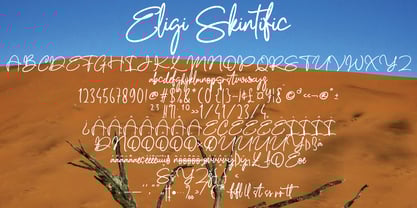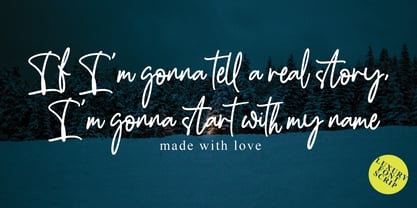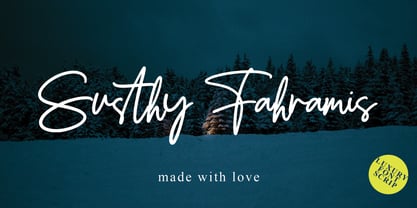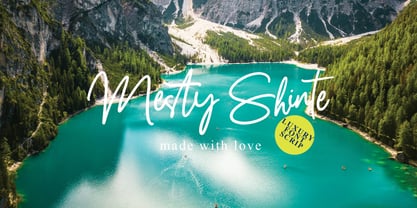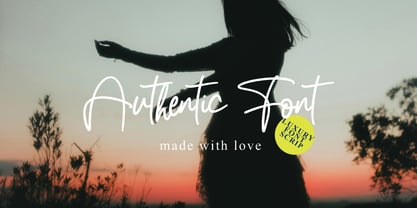
Elegi Skintific
by Pineungtype misinklab
The Elegi Skintific Font Family was designed by Beni Saswita and published by Pineungtype misinklab. Elegi Skintific contains 1 styles.
Elegi Skintific with new style, this font will perfect for many different project ex: quotes, logo, blog header, poster, banding, letter, invitation, stationery, etc...
Designers: Beni Saswita
Publisher: Pineungtype misinklab
Foundry: Pineungtype misinklab
Design Owner: Pineungtype misinklab